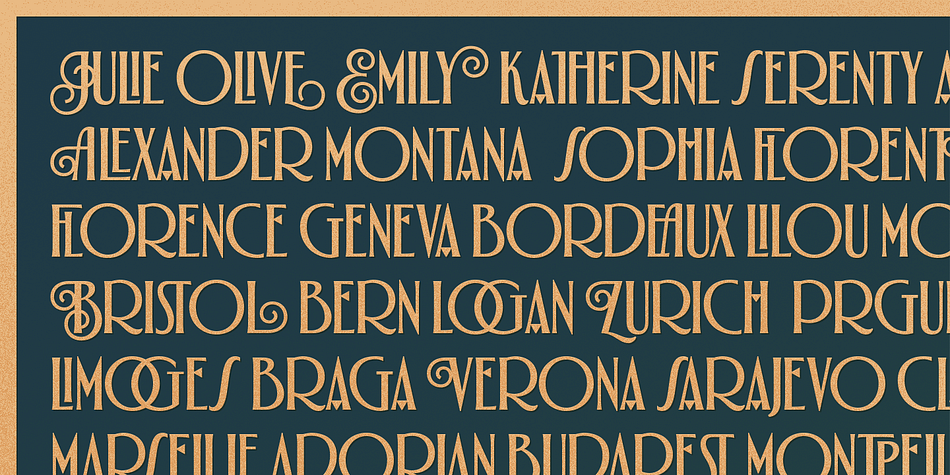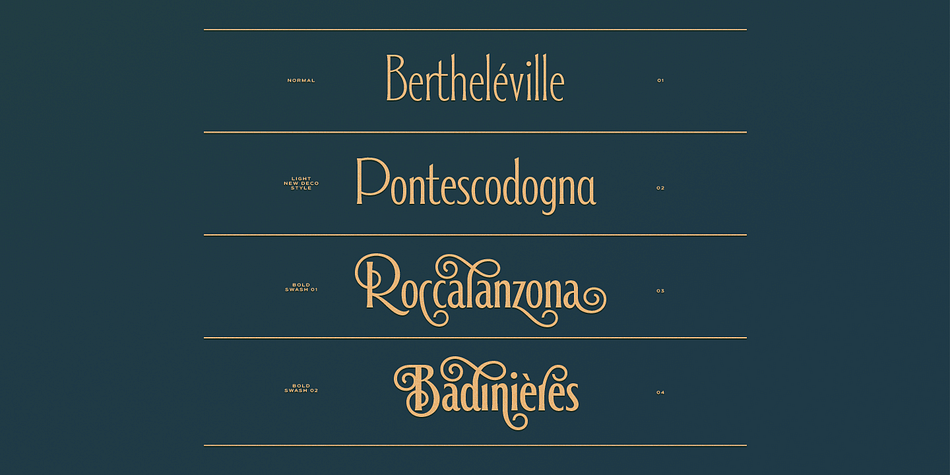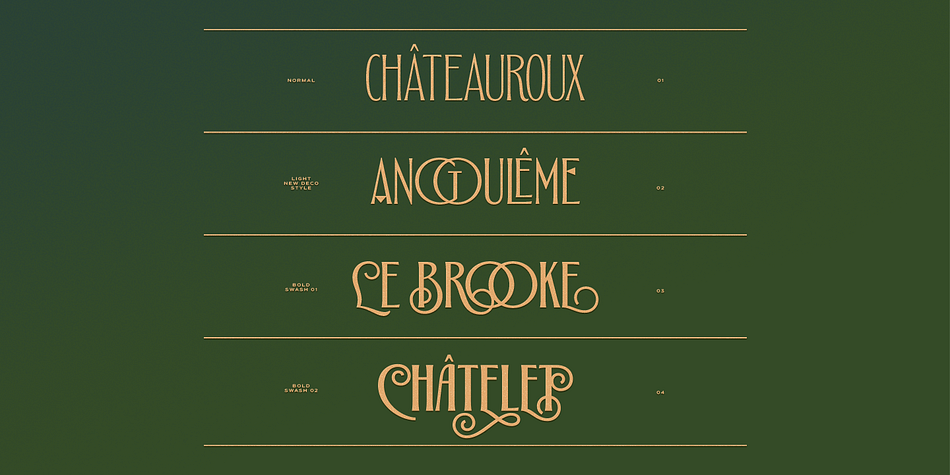
Alathena
Designed by Cahya Sofyan, Alathena is a multiple classification font family. This typeface has six styles and was published by Studio Sun.
Alathena Font Family was inspired by the france art decade between art nouveau to art deco, comes with 2 style, Alternative swash and Modern deco, with some modified ligatures. Available with 6 Weights, Thin, Extra Light, Light, Regular, Bold, Extra Bold with support 75+ language (Latin Pro).
Styles Art Deco, Art Nouveau, Display Serif, Serif